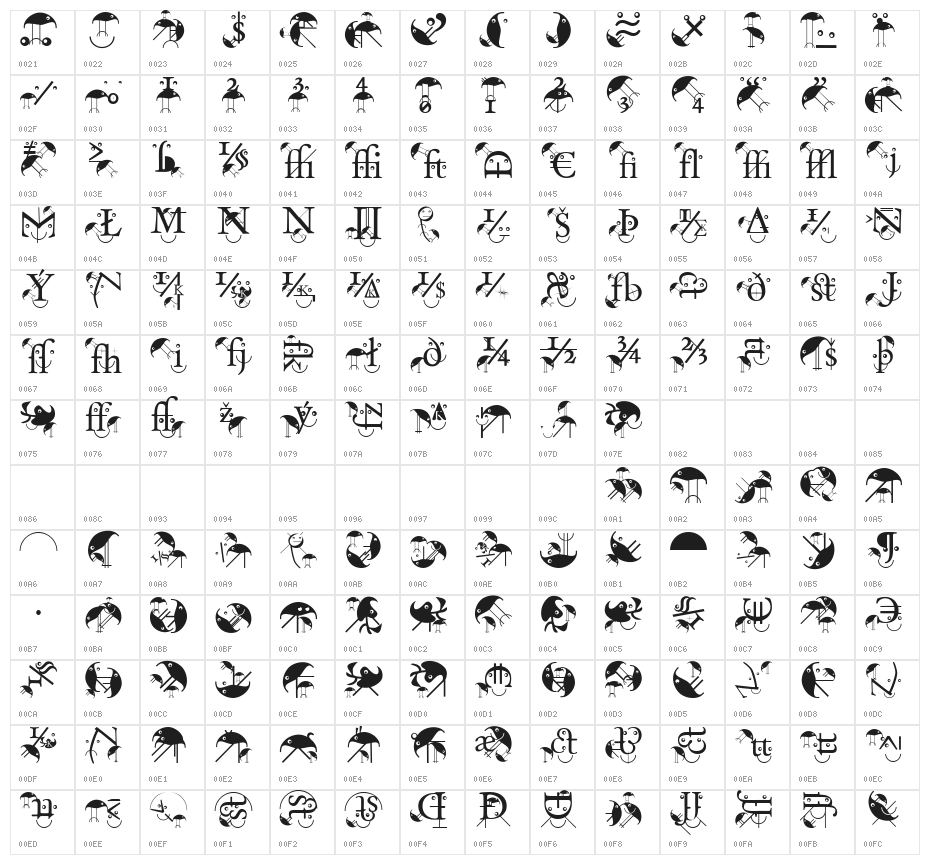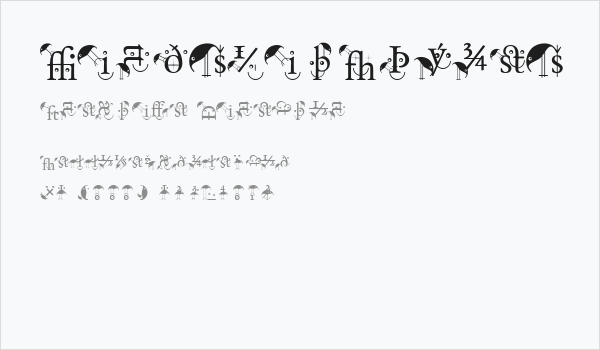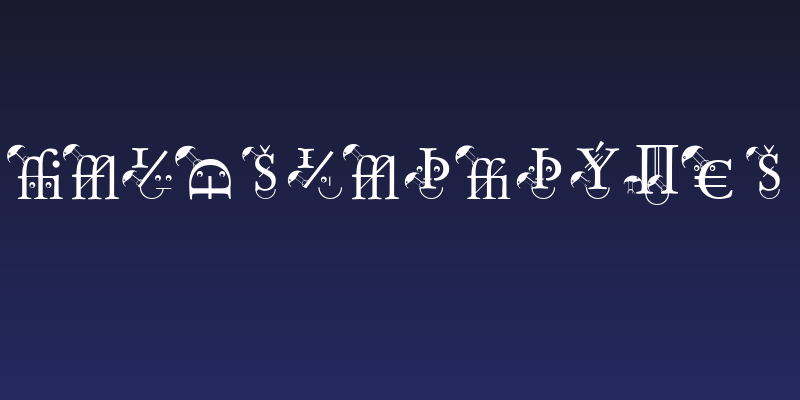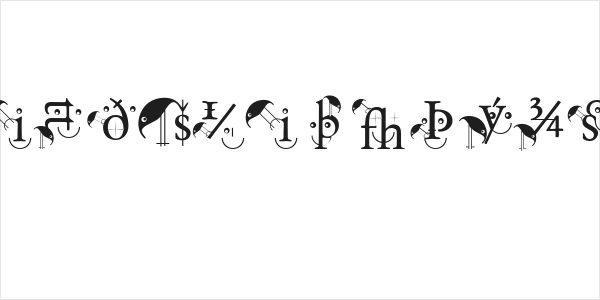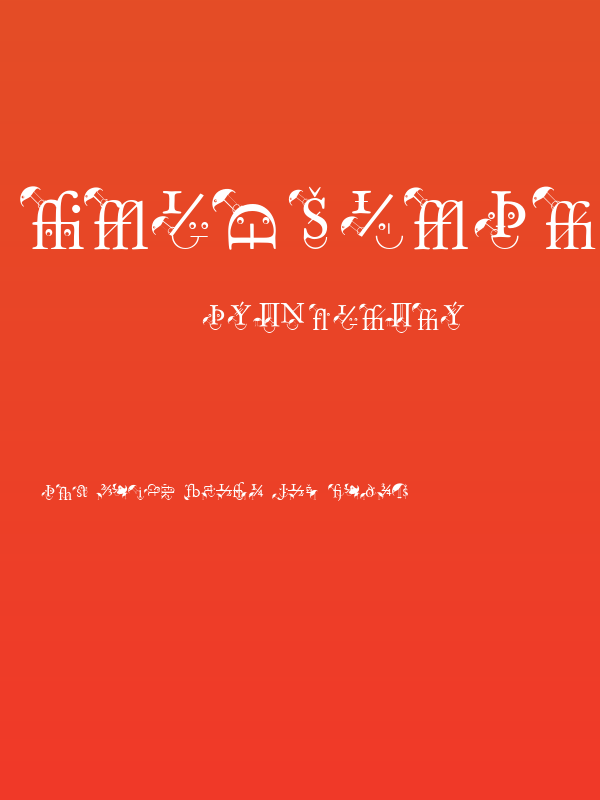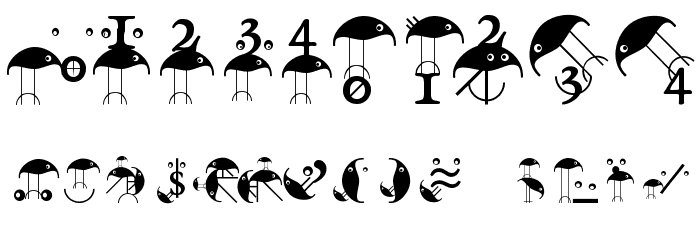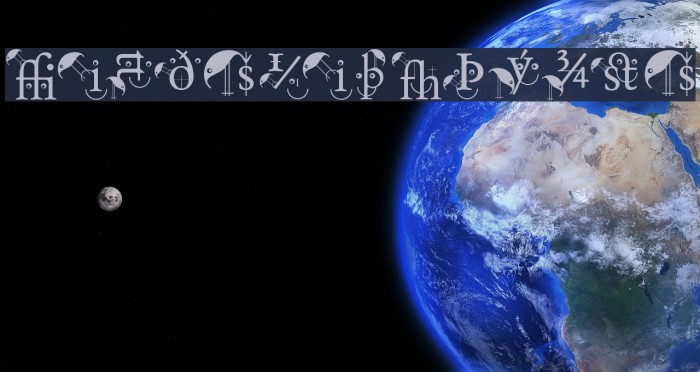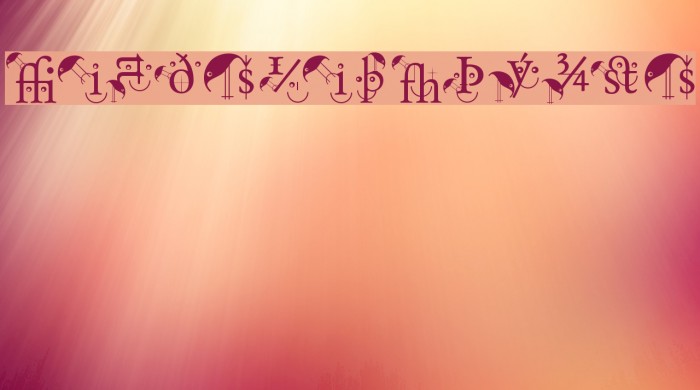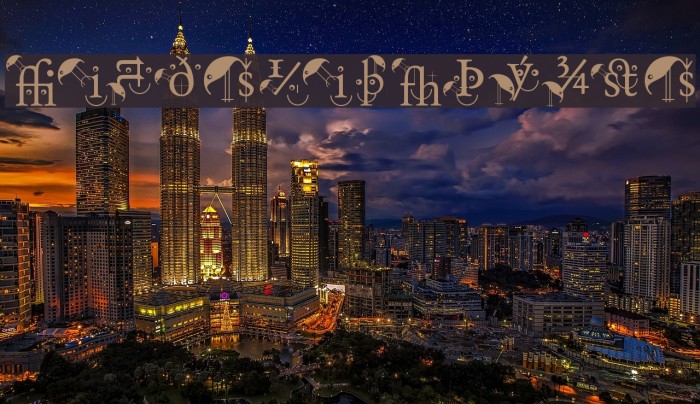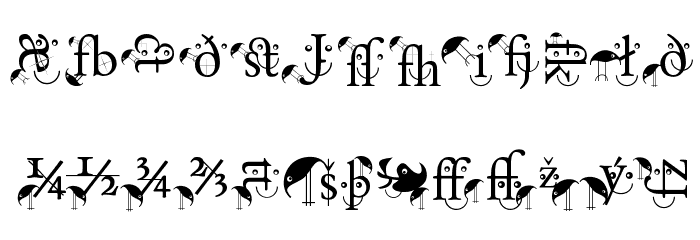
BirdsWithTypes Font
BirdsWithTypes Description
This font is a whimsical and decorative typeface that integrates bird-like features into each character. The letters are creatively designed with bird heads, beaks, and feet, giving them a playful and unique appearance. The uppercase and lowercase letters maintain a consistent style, with each character featuring distinct avian elements. Numbers and special characters also follow this theme, incorporating bird motifs seamlessly. The font's artistic and imaginative design makes it stand out, offering a fun and engaging visual experience.